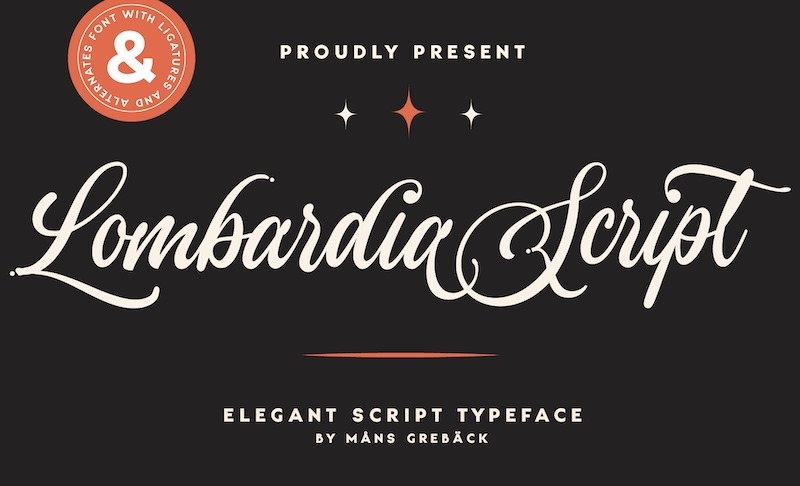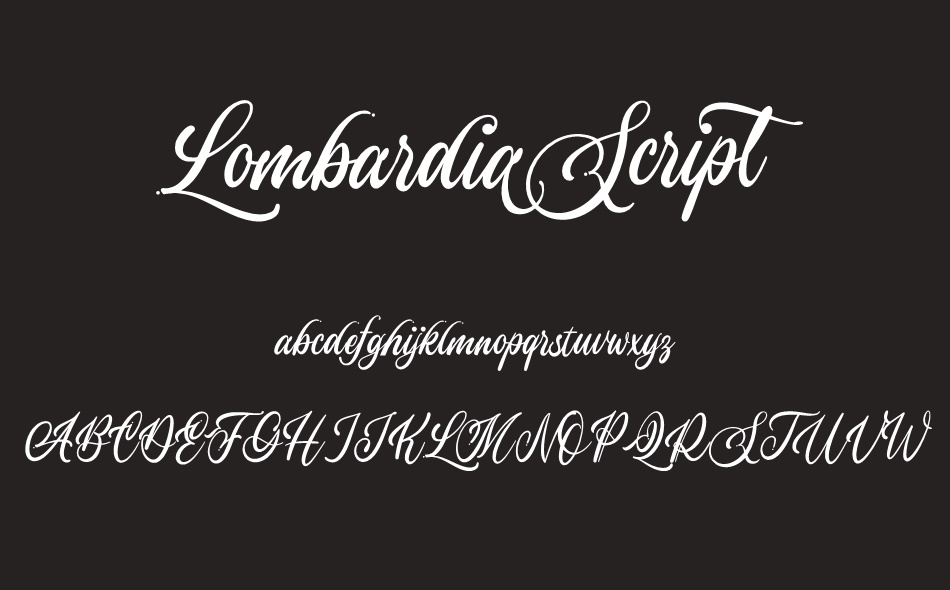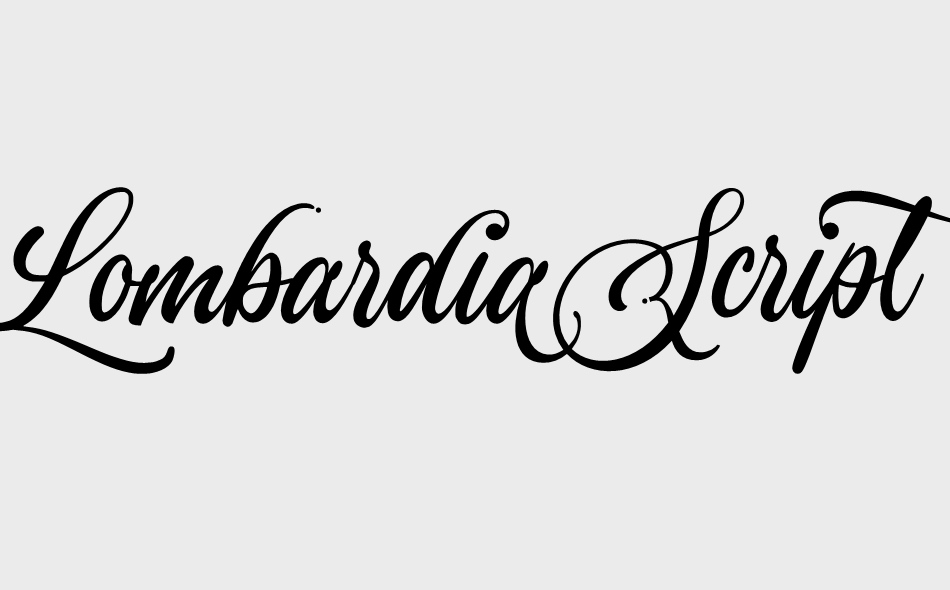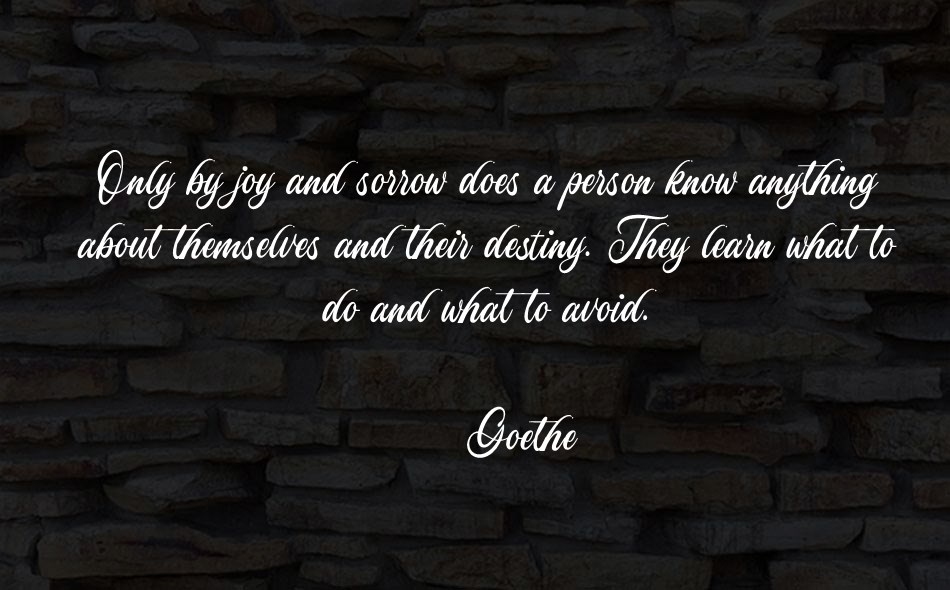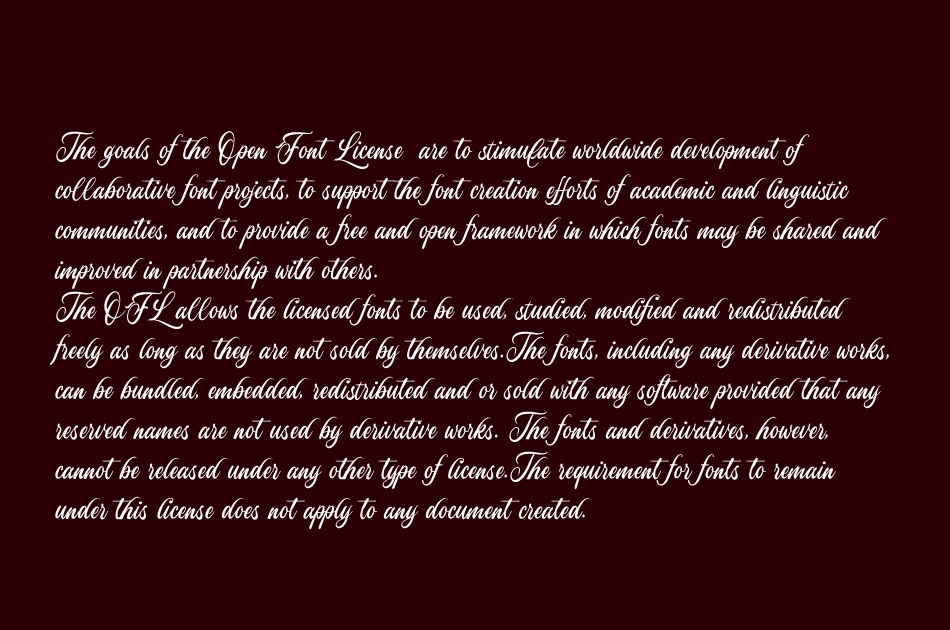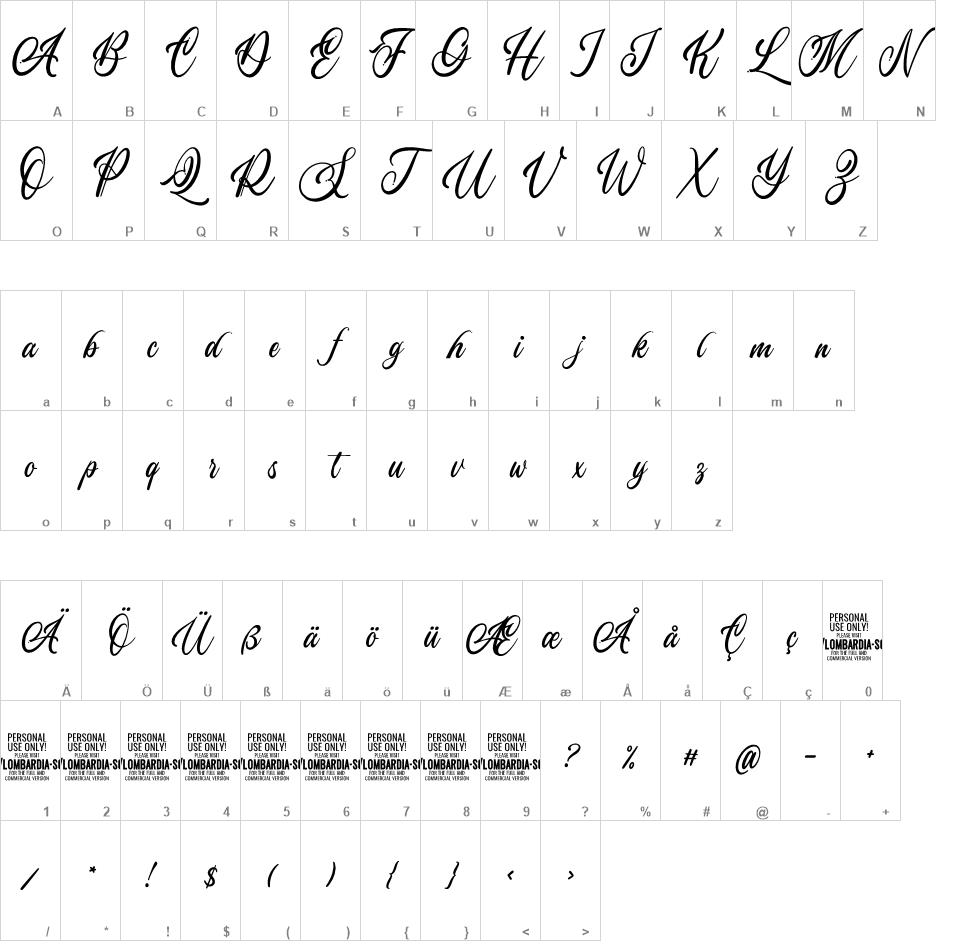
Lombardia Script font
Use underscores _ anywhere in a word to make a swash.
Example: Wonder_woman
Use multiple underscores to make different swashes.
Example: Extra__vagant
Lombardia Script is a creative and decorative script font that exudes vividness and elegance. This font is perfect for designing logotypes, tattoos, and other projects that require a signature-like quality.
Designed with the art of calligraphy in mind, Lombardia Script features a delicate and expressive stroke that gives it a natural and authentic look. Its ink and brush-like appearance adds to its creativity and uniqueness, making it a great choice for any project that requires a touch of sophistication.
Lombardia Script comes in four styles: Regular, Italic, Bold, and Bold Italic. This range of styles provides versatility and allows for dynamic and creative designs.
With its beautiful and flowing letterforms, Lombardia Script is the perfect choice for adding a touch of elegance and creativity to any project.
Use underscores _ anywhere in a word to make a swash.
Example: Wonder_woman
Use multiple underscores to make different swashes.
Example: Extra__vagant
The font is built with advanced OpenType functionality and has a guaranteed top-notch quality, containing stylistic and contextual alternates, ligatures and more features; all to give you full control and customizability.
It has extensive lingual support, covering all Latin-based languages, from Northern Europe to South Africa, from America to South-East Asia.
It contains all characters and symbols you'll ever need, including all punctuation and numbers.